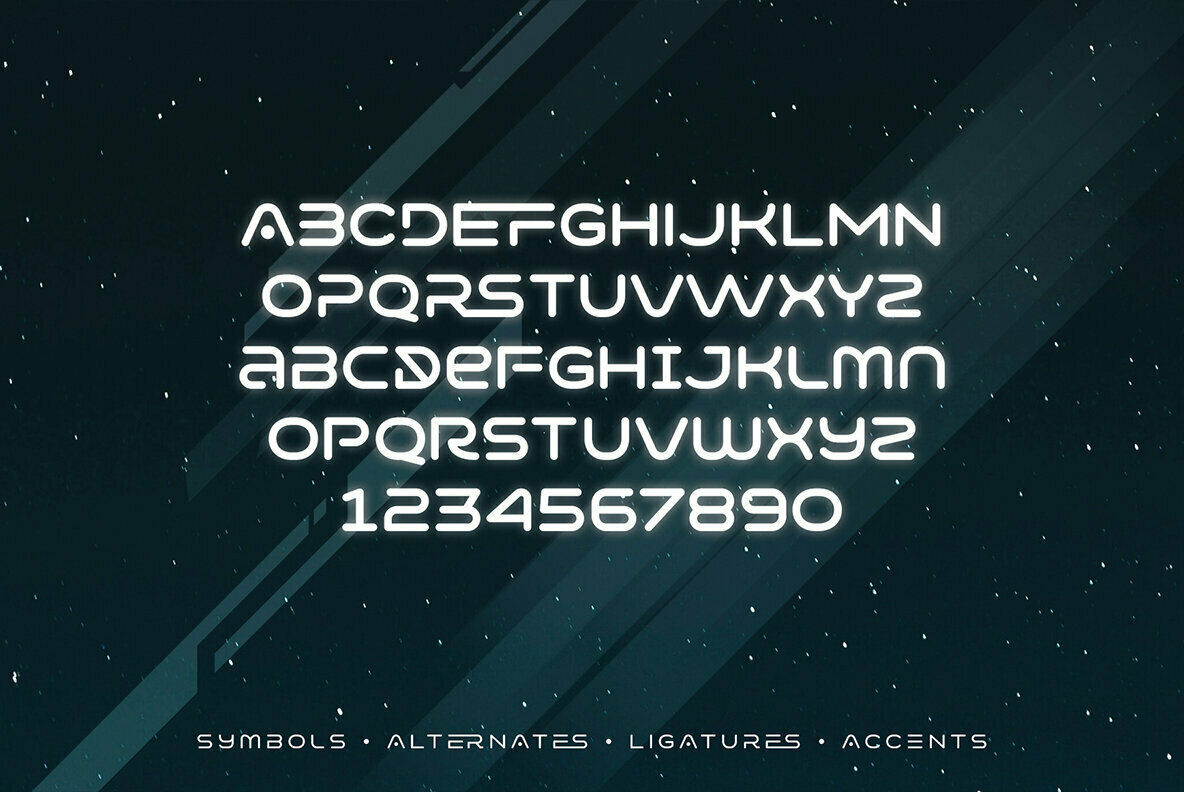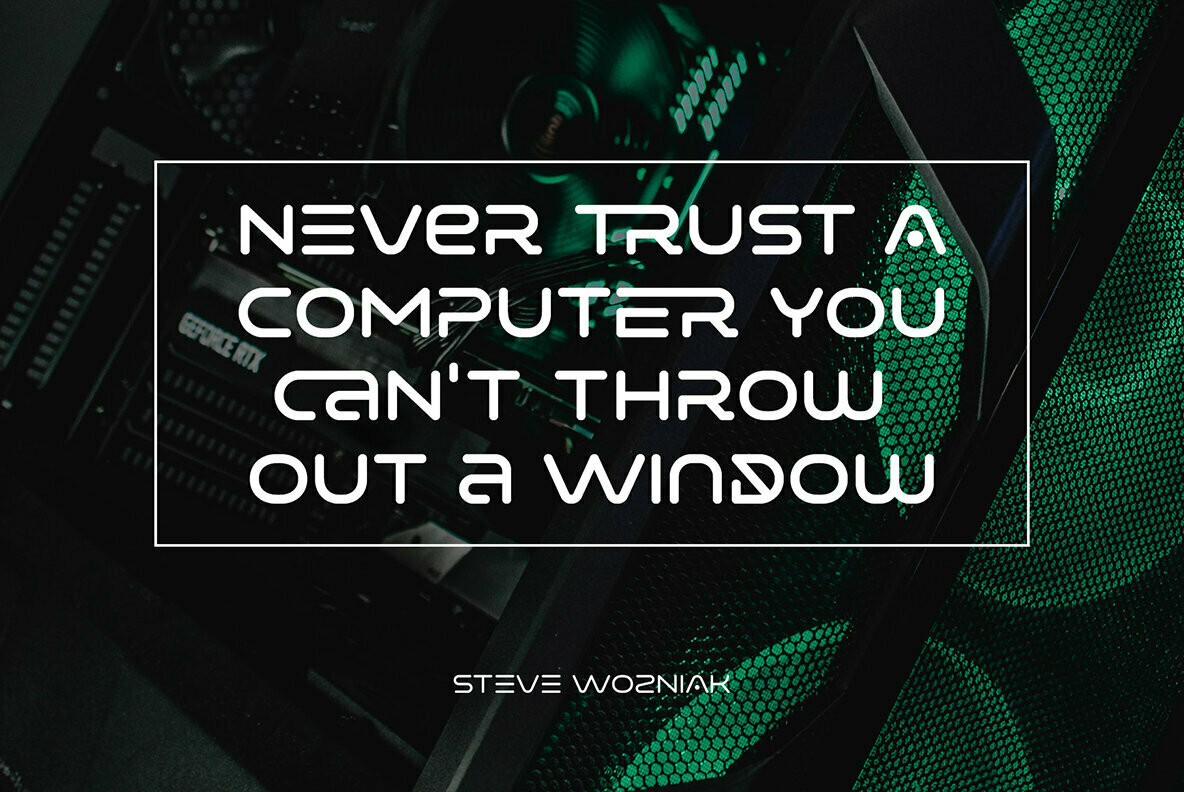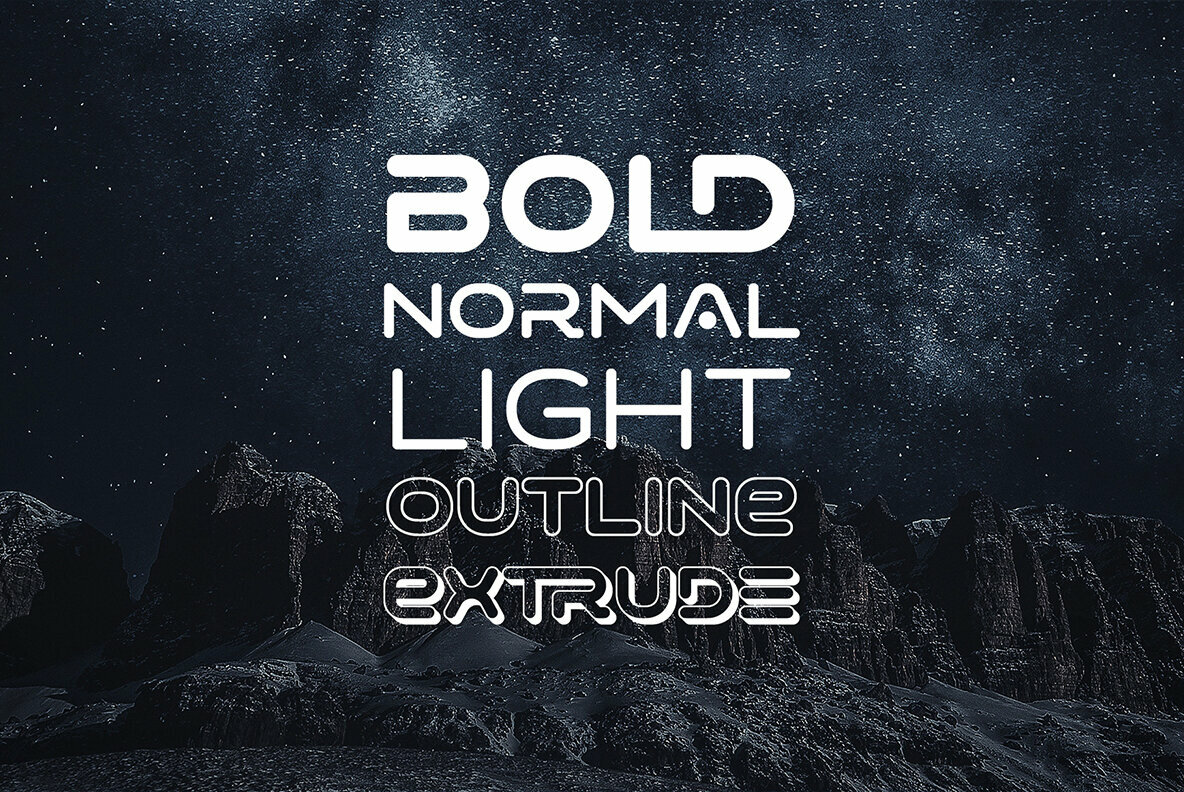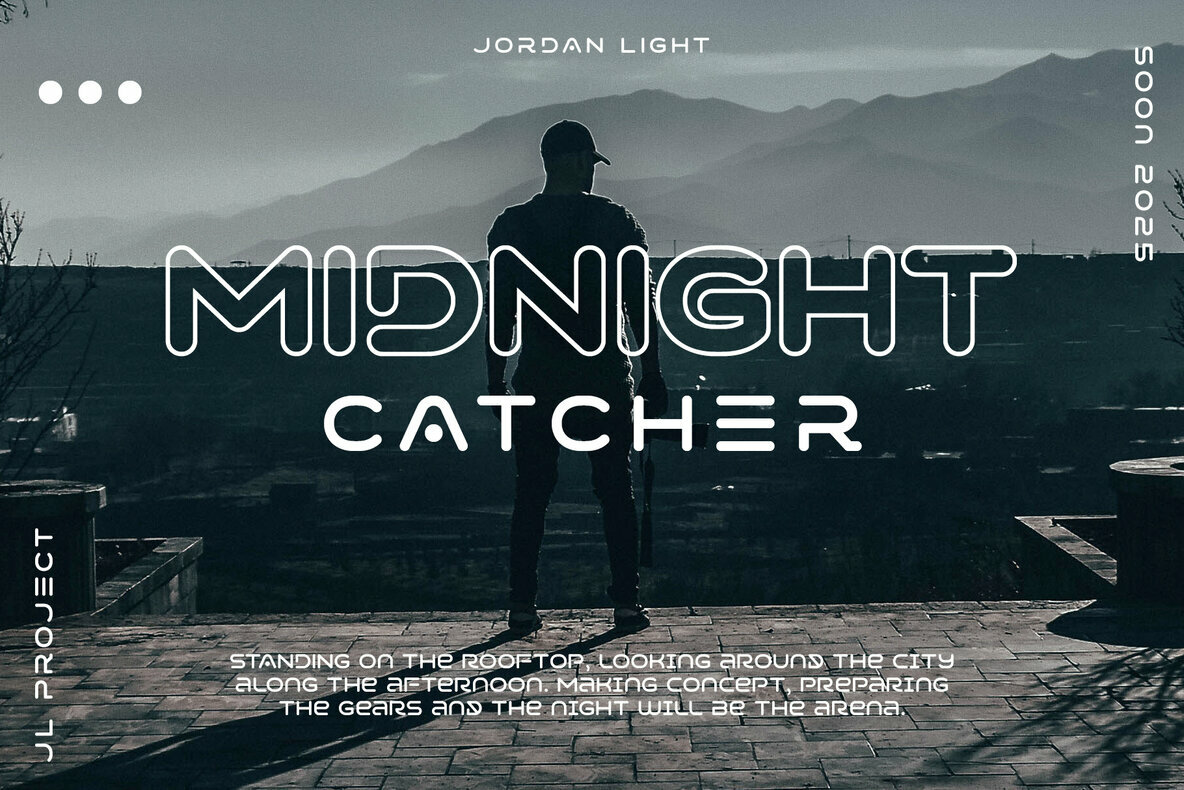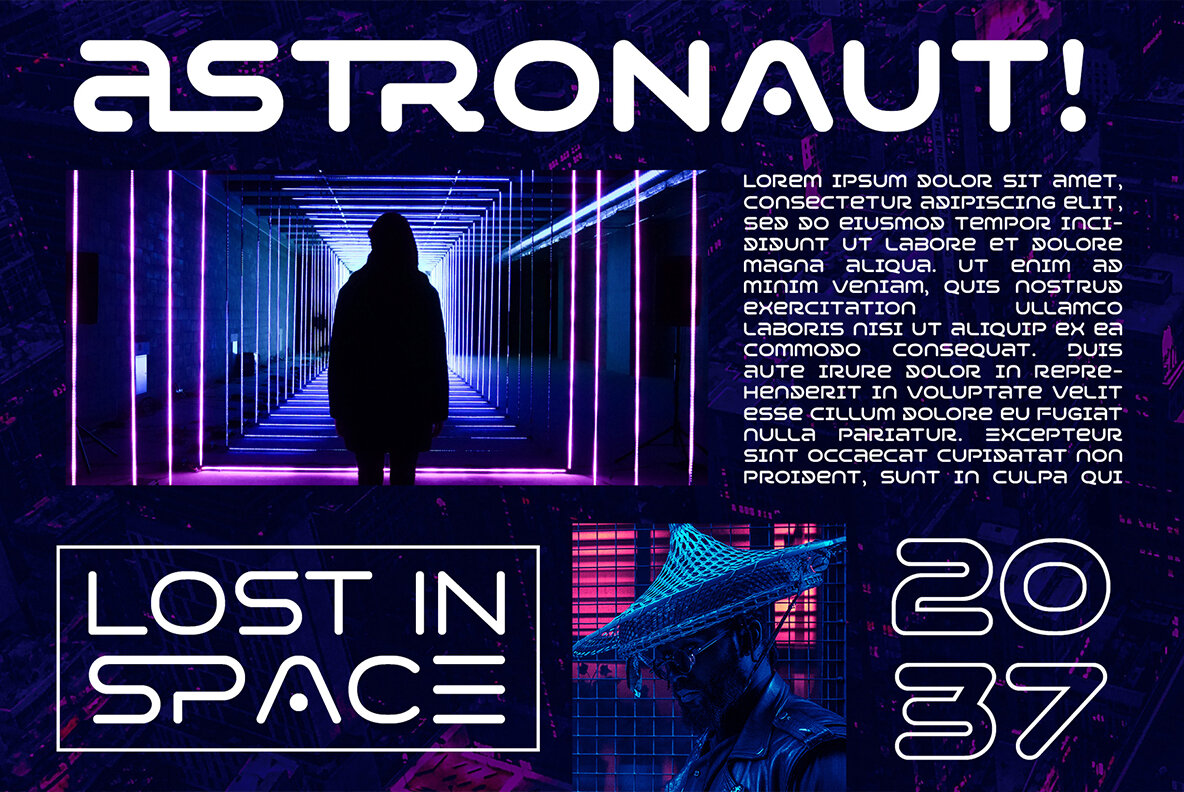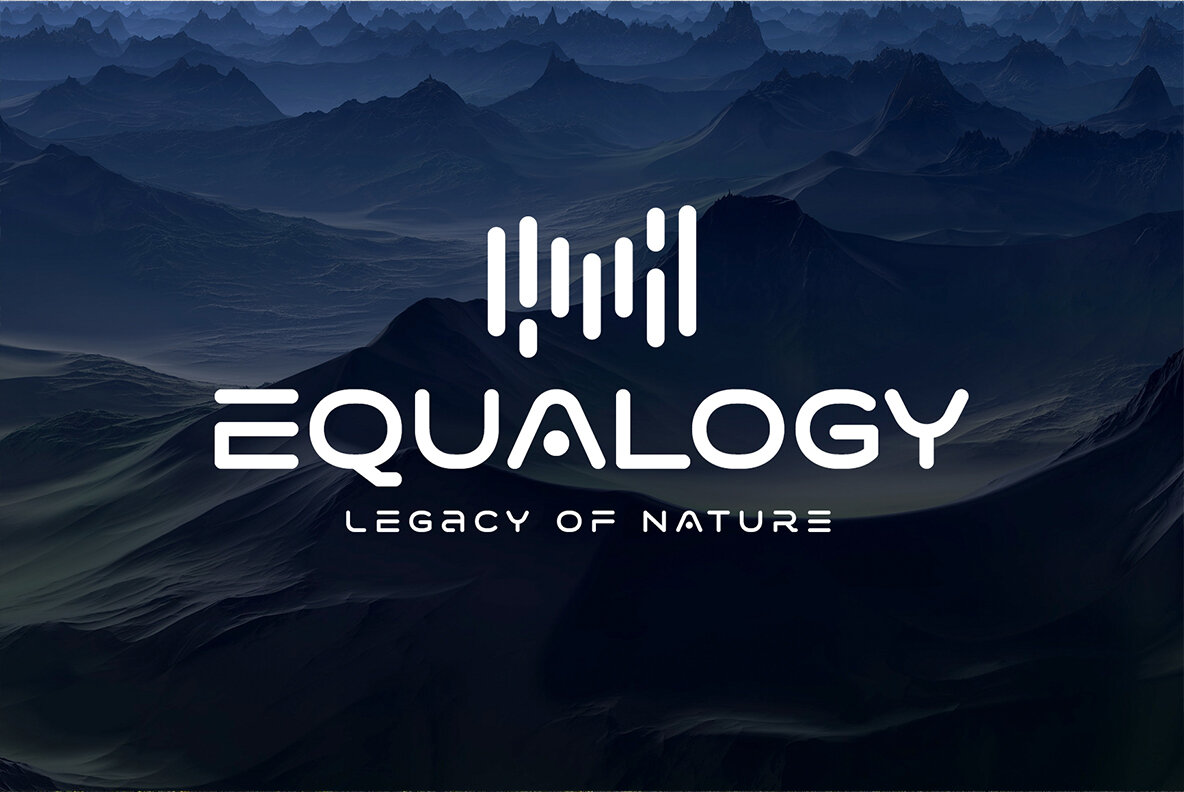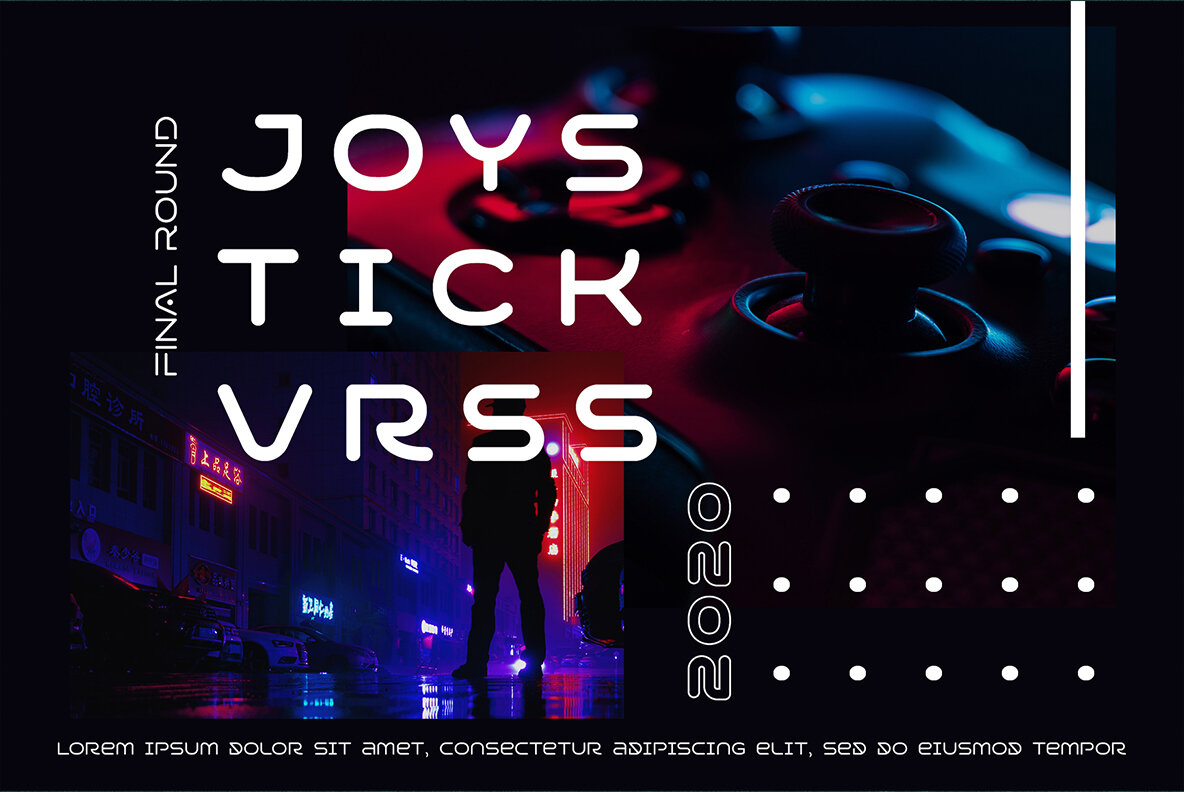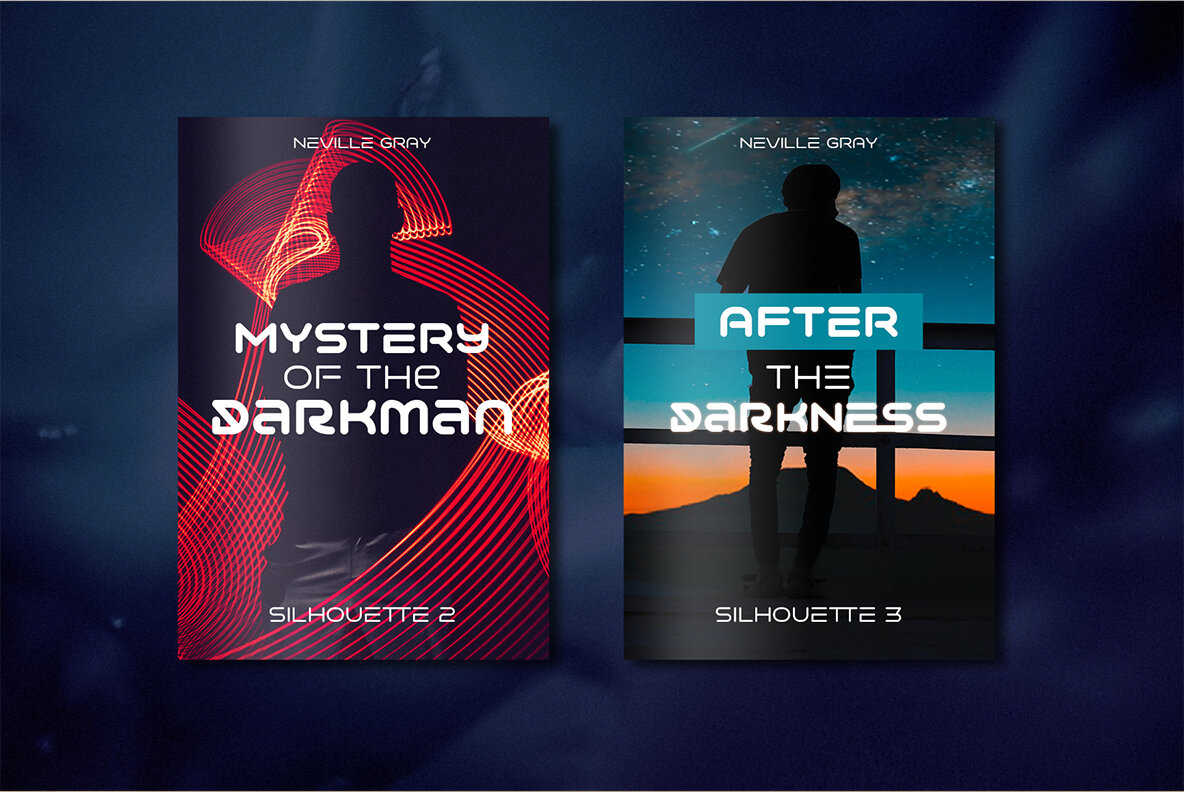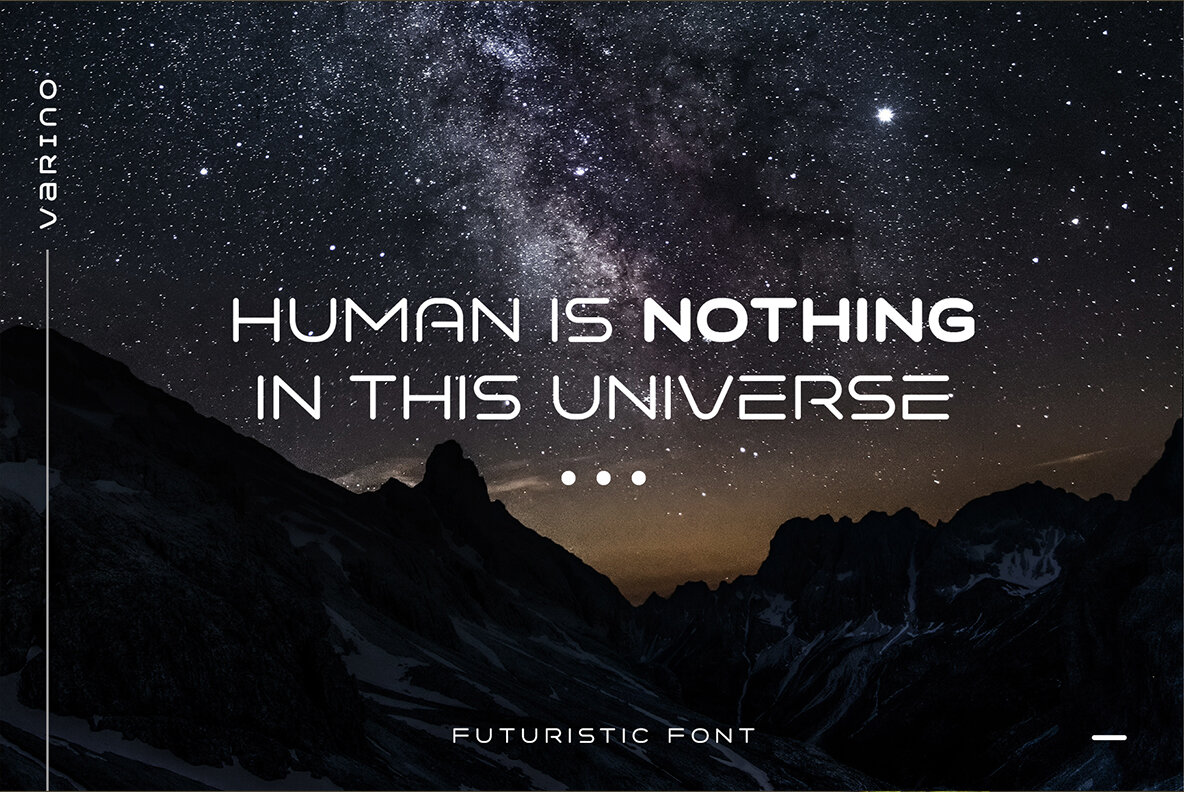
Varino Font
Step into the future of typography with Varino, a font family that encapsulates the cutting-edge essence of modern technology. Inspired by the visuals found in logos, Sci-Fi films, and contemporary gadgets, Varino’s minimalist style and distinctive letterforms offer a sleek solution for a range of creative projects. Whether you're designing logos, labels, or posters, or involved in book cover designs, product packaging, or game interfaces, Varino provides a refined narrative to your visuals. With elegant ligatures enhancing its futuristic and dynamic appeal, Varino is an exceptional choice for designers seeking to infuse a sophisticated and contemporary look into their work.Varino: The Essence of Futuristic Design